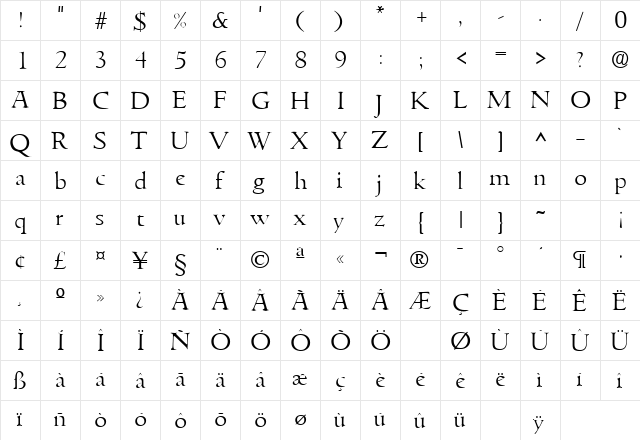
GoudyItalianLH Regular
Design Context for GoudyItalianLH Typeface
GoudyItalianLH offers clean, dependable letterforms without strong stylistic allegiance, making it a practical choice for designers who need flexibility.